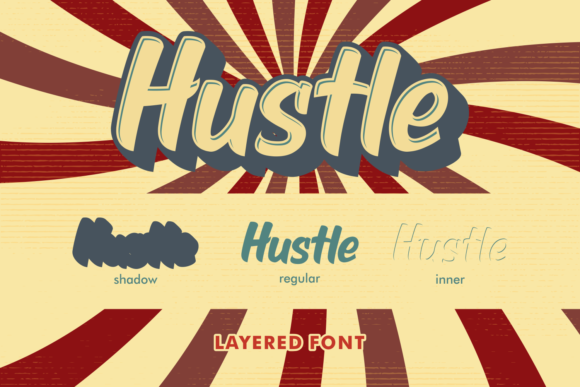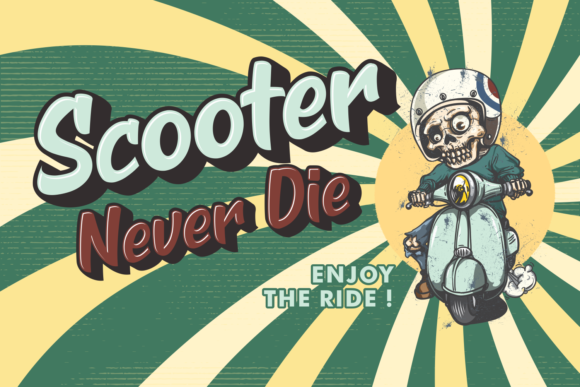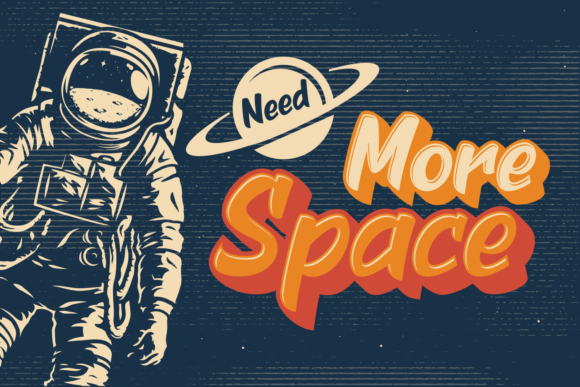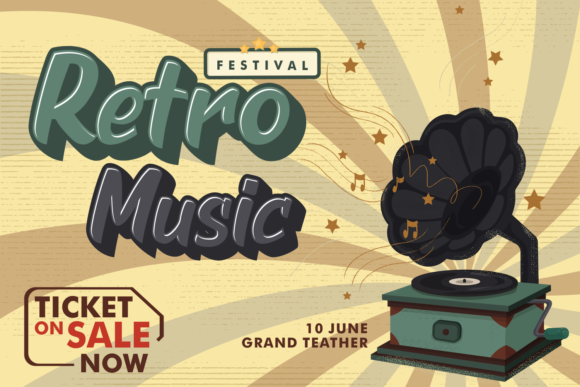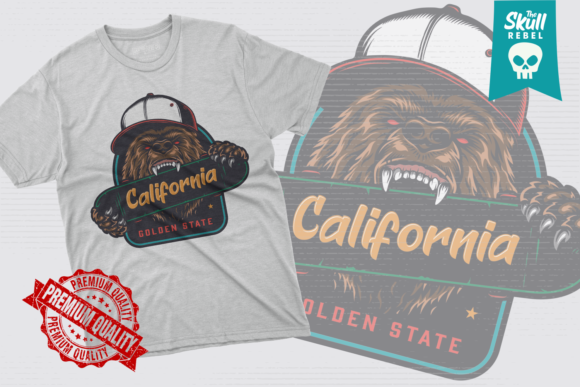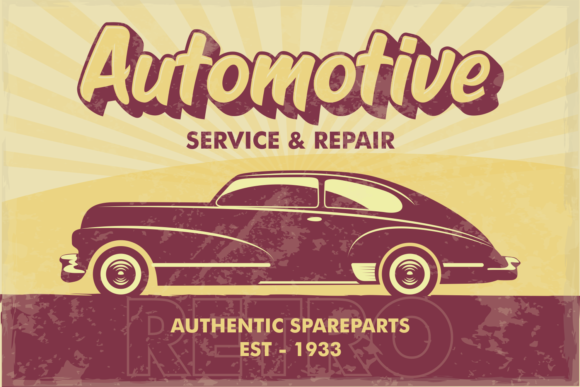
Introducing Great Hustle Font: A Vintage and Unique Display Font
Are you tired of using the same old fonts for your designs? Look no further! Great Hustle Font is a game-changer for designers and crafters alike. This vintage and unique display font is perfect for adding a touch of elegance and sophistication to your projects. Whether you’re working on a website, print material, or moving images, Great Hustle Font is sure to make your designs stand out.
What Makes Great Hustle Font So Special?
Great Hustle Font is a carefully crafted font that boasts a unique and distinctive style. Its vintage charm is reminiscent of classic typography, while its modern twist makes it perfect for contemporary designs. The font’s versatility is one of its standout features, making it suitable for a wide range of applications, from web design to print materials, and even moving images.
Key Features of Great Hustle Font
- Vintage and Unique Style: Great Hustle Font has a distinctive vintage charm that sets it apart from other fonts.
- Highly Versatile: The font can be used for a wide range of applications, including web design, print materials, and moving images.
- Elegant and Sophisticated: Great Hustle Font adds a touch of elegance and sophistication to any design.
- Easy to Read: Despite its ornate style, Great Hustle Font is easy to read, making it perfect for headlines and titles.
Uses of Great Hustle Font
Great Hustle Font is perfect for designers and crafters who want to add a touch of vintage charm to their projects. Here are some of the many uses of this amazing font:
- Web Design: Use Great Hustle Font to create stunning headlines and titles for your website.
- Print Materials: The font is perfect for creating eye-catching posters, flyers, and brochures.
- Moving Images: Great Hustle Font can be used to add a touch of elegance to your videos and animations.
- Logos and Branding: The font can be used to create unique and memorable logos and branding materials.
Why Designers and Crafters Love Great Hustle Font
Great Hustle Font has quickly become a favorite among designers and crafters, and for good reason. Here are some of the reasons why:
- Unique Style: The font’s unique style sets it apart from other fonts, making it perfect for designers who want to create something truly original.
- High-Quality: The font is high-quality and scalable, making it perfect for use in a wide range of applications.
| Font Name | Great Hustle Font |
| Author | fachranheit |
In conclusion, Great Hustle Font is a vintage and unique display font that is perfect for designers and crafters who want to add a touch of elegance and sophistication to their projects. Its versatility, highly legible design, and unique style make it a must-have font for any designer or crafter. Whether you’re working on a website, print material, or moving images, Great Hustle Font is sure to make your designs stand out.